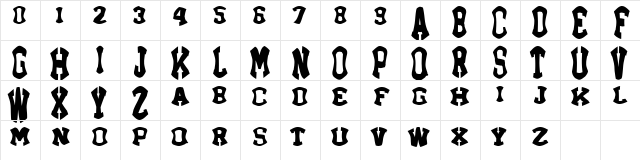
BlueMirth Regular
Foundry: TheBlueJoker
Designer: TheBlueJoker
Design Context for BlueMirth
BlueMirth is a composed and adaptable typeface that performs quietly and consistently across a wide range of design contexts.